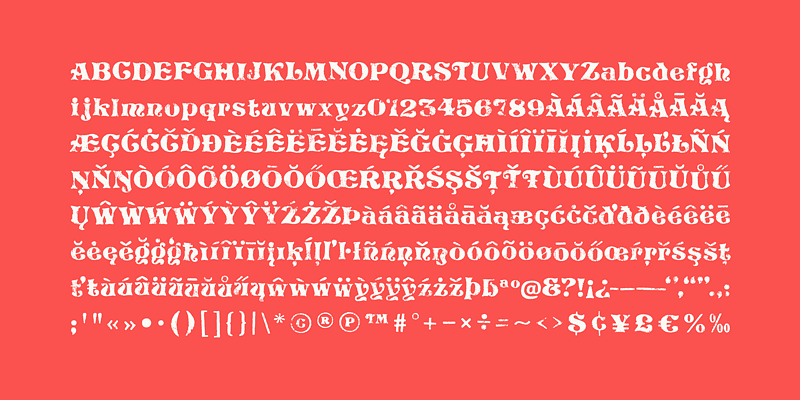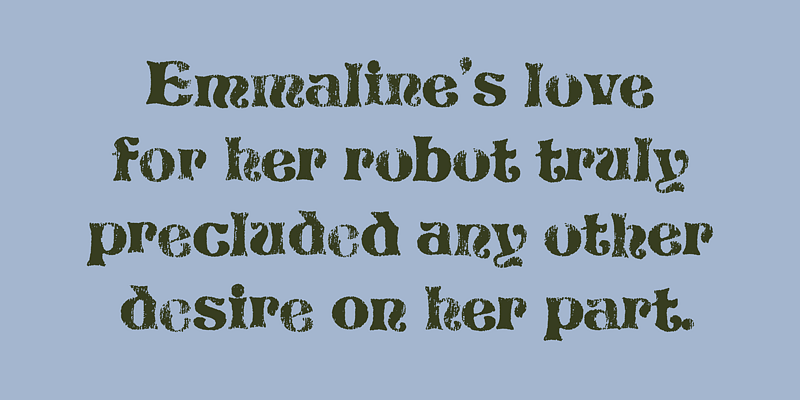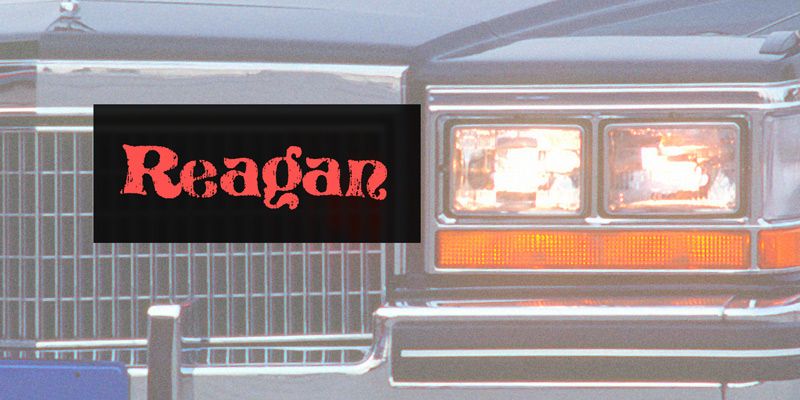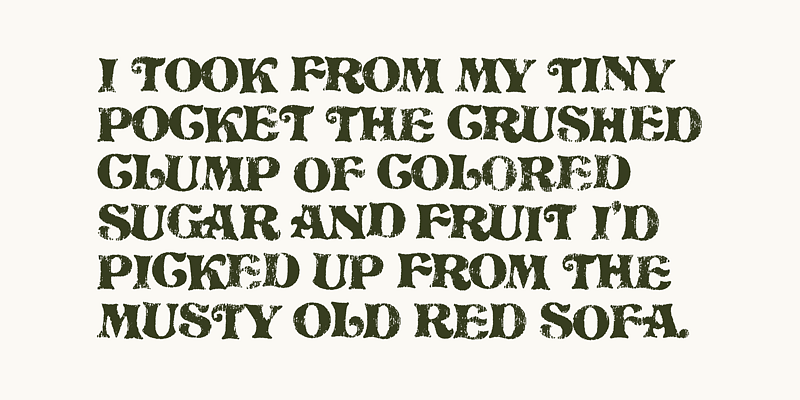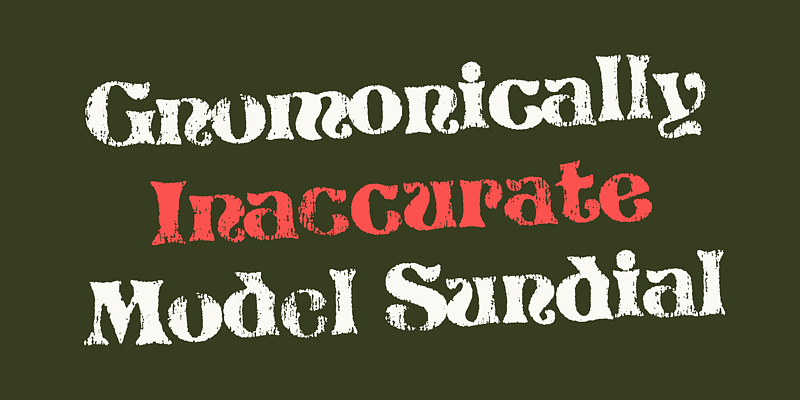
Reagan evokes the everyday graphics of the 1980s through a decorative, worn T-shirt voice. Its forms suggest a design printed on fabric, washed, and kept long after the event. It works for a local souvenir, retro restaurant shirt, period poster, or fictional shop logo when a neon-grid version of the decade would feel too slick. The face can make a new design look like an artifact someone has owned for years.